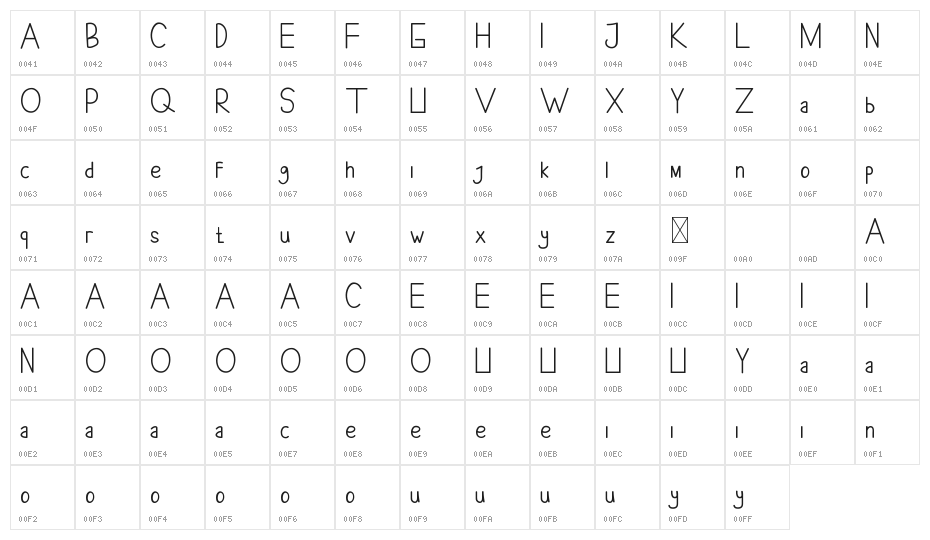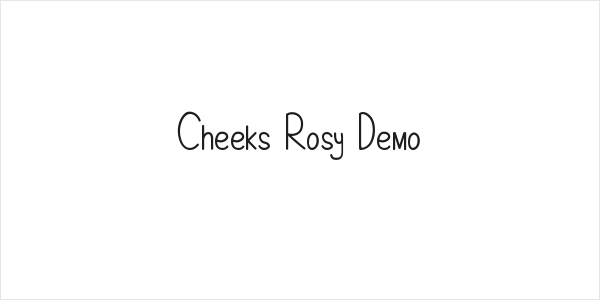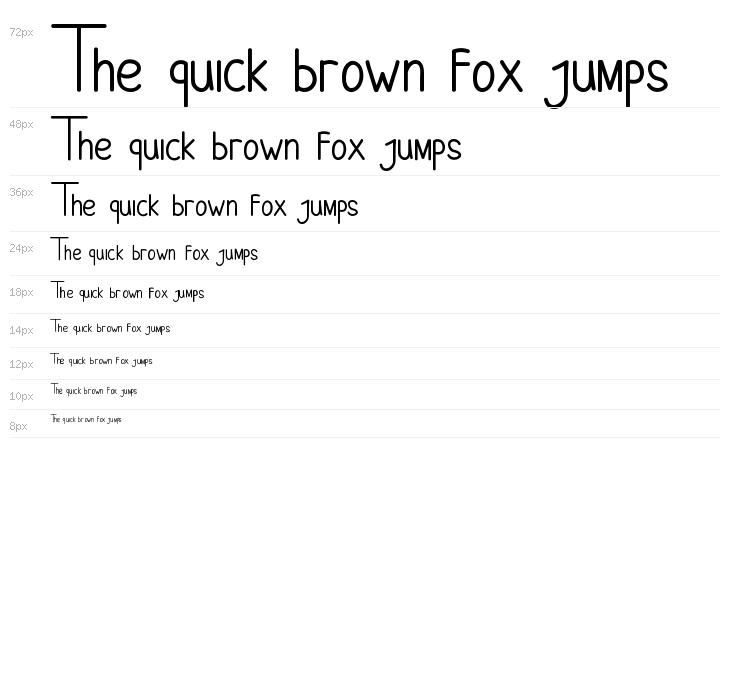
Cheeks Rosy Demo Font
Cheeks Rosy Demo Description
This font features a playful and whimsical design with a hand-drawn aesthetic. The characters are tall and narrow, with a consistent stroke width that gives it a clean and modern look. The uppercase letters have a unique style with slightly exaggerated curves and angles, while the lowercase letters maintain a more traditional form. The numbers and special characters are designed to match the overall playful theme, making it suitable for creative and informal projects. The font's simplicity and charm make it versatile for various design applications.
Overall StylePlayful
Proposed ProjectsIdeal for children's books, greeting cards, playful branding, and creative posters.